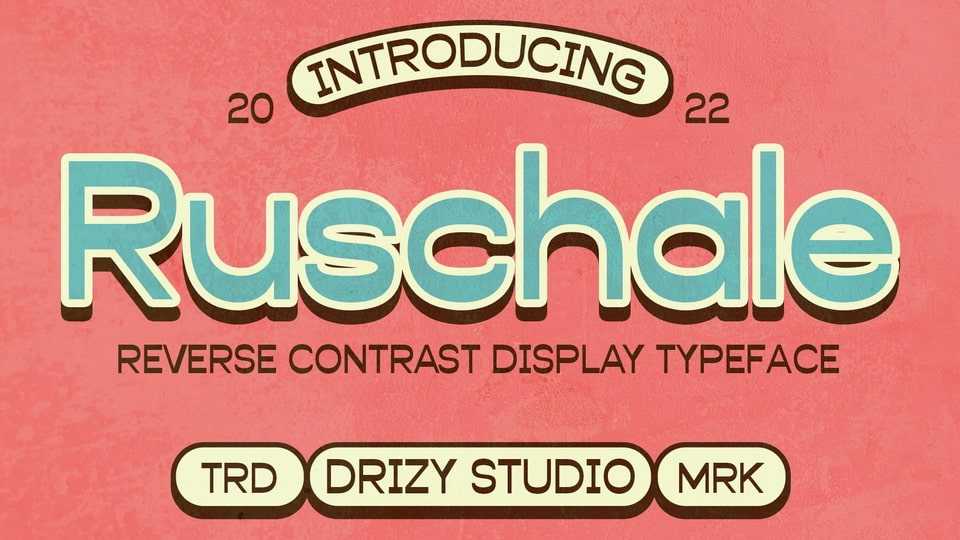
Download Ruschale font, a reverse contrast geometric typeface inspired by retro vibes. Ruschale offers all the styles you need for retro theme of your projects.
Designer: Drizy Studio